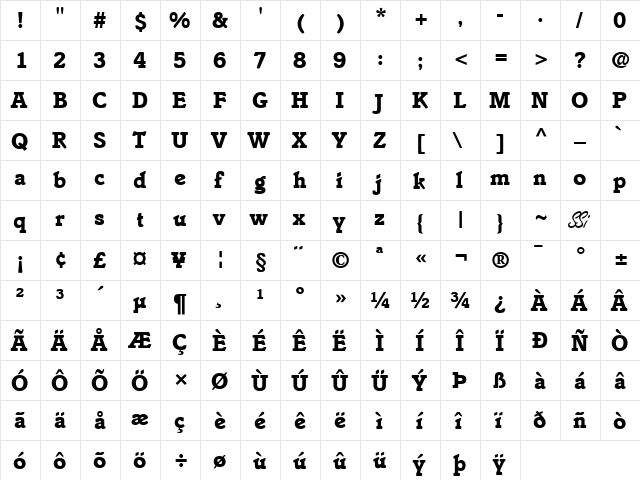
Ensemble SSi Bold
Design Context for Ensemble SSi Typeface
Ensemble SSi takes a measured approach to typography — its balanced proportions and neutral character make it a reliable workhorse for both digital and print work. The heavy weight commands attention and anchors typographic hierarchies.